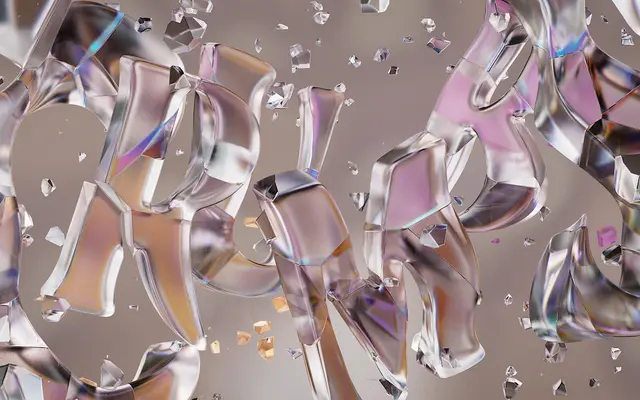
Crumbs
A three-style variable type system from Hot Type, spanning Sans, Semi and Serif cuts within a single family.
Crumbs offers three stylistically distinct but related cuts — Sans, Semi and Serif — sold individually or as a variable font package at a discount. The system is designed to work across display and text sizes, with the sample settings running from large headlines down to body copy. The variable font format ties all three styles together, making it practical for publications or brand systems that need variation without switching typefaces.
The family spans three distinct styles — Sans, Semi, and Serif — suggesting a humanist-influenced approach to a type system bridging sans and serif forms. The sans cut leads the classification given its prominence and the overall design language.